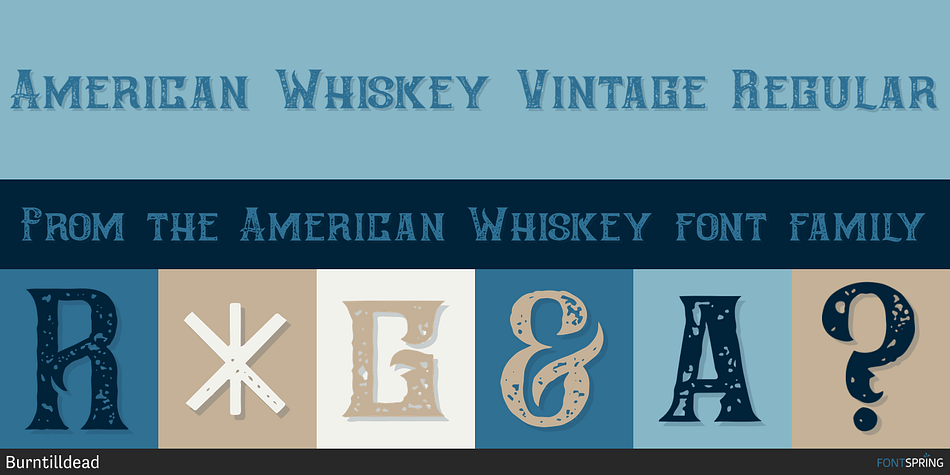
American Whiskey Vintage Regular
American Whiskey is a font family. This typeface has two styles and was published by Burntilldead.
American Whiskey is All caps font with modern and vintage western style.